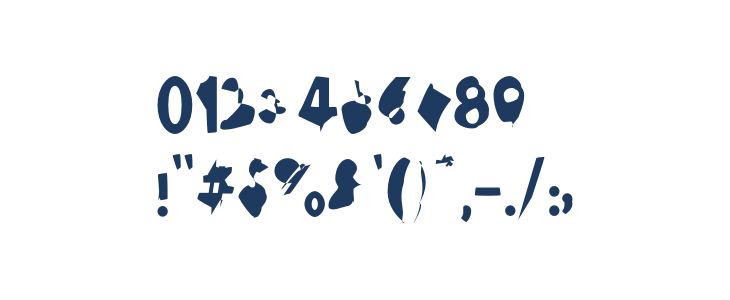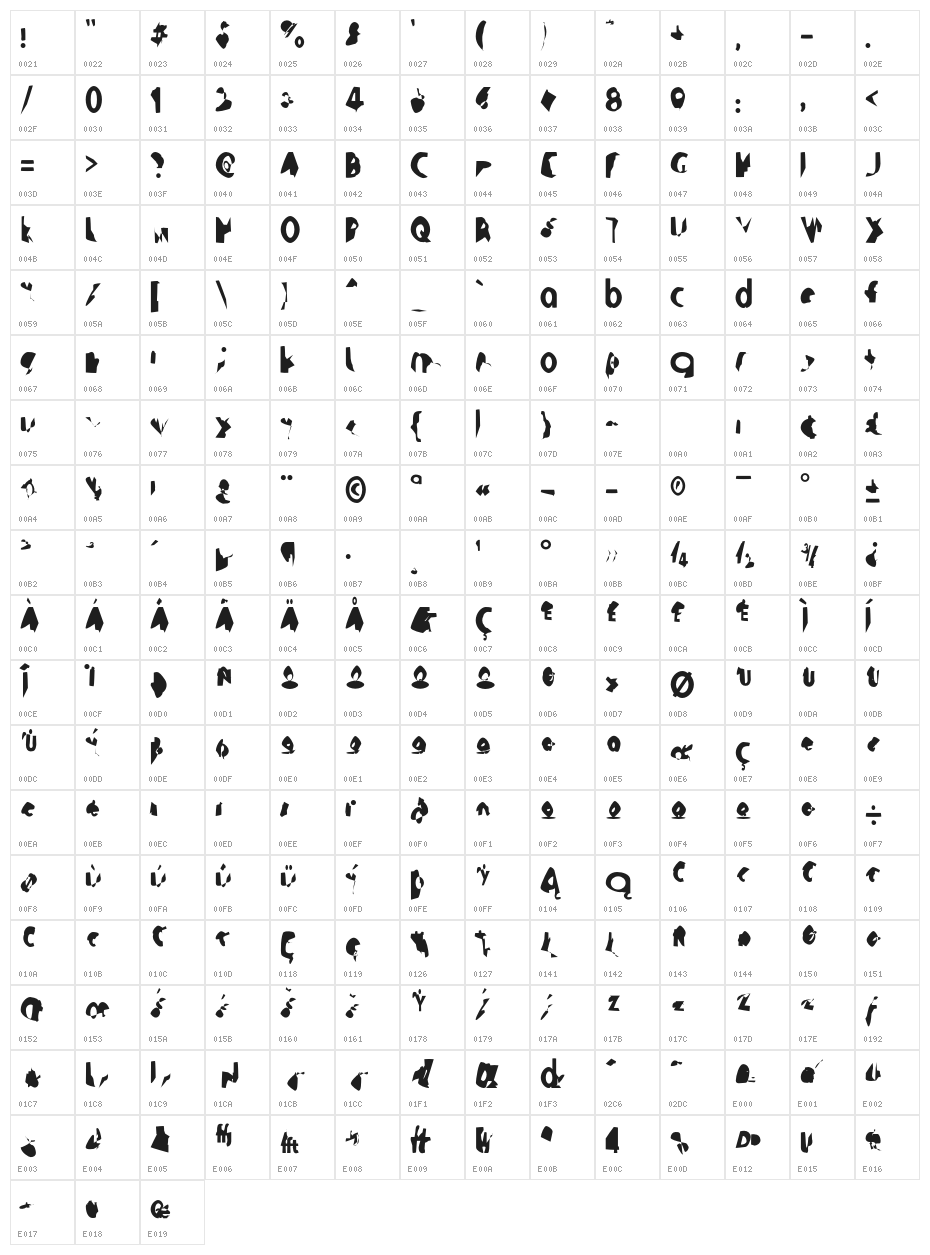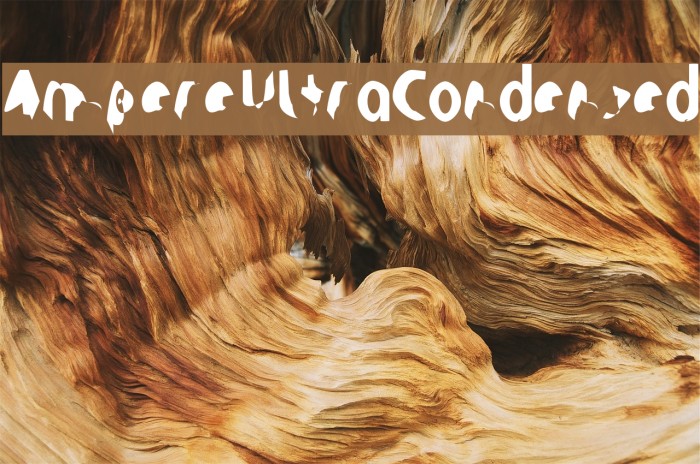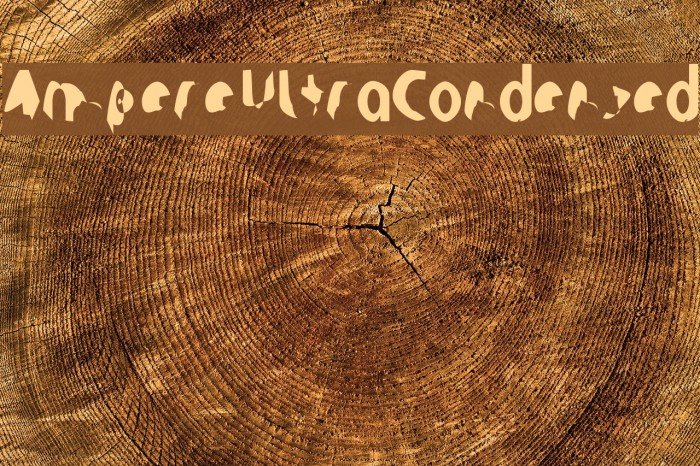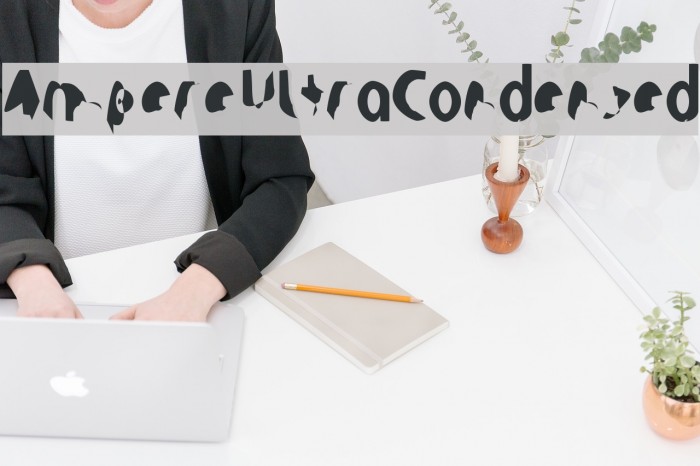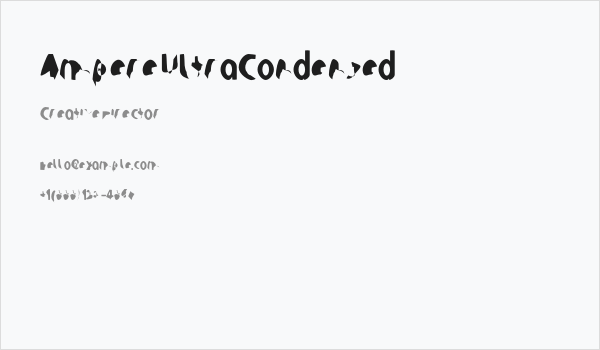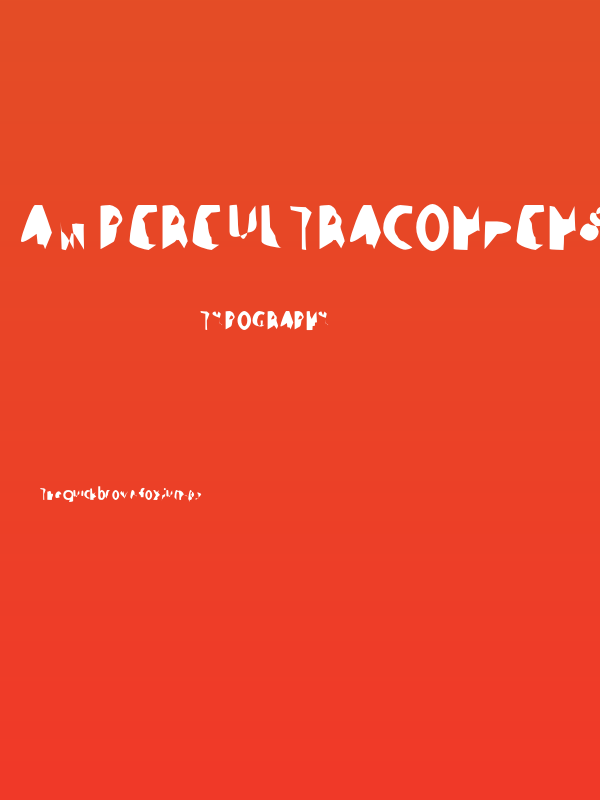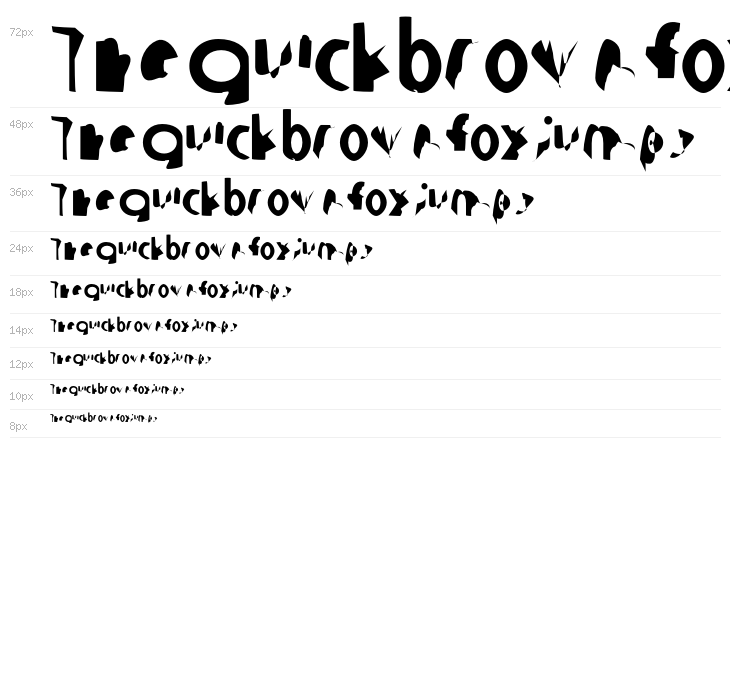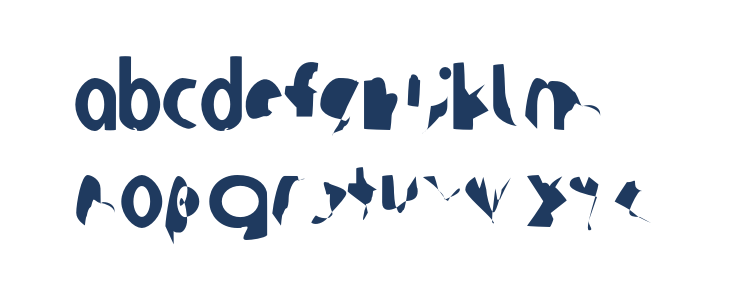
Ampere UltraCondensed Font
Ampere UltraCondensed Description
This font features a highly abstract and fragmented design, with each character appearing as if it has been shattered or deconstructed. The uppercase and lowercase letters, as well as numbers and special characters, are composed of bold, irregular shapes that create a sense of movement and chaos. The overall appearance is striking and unconventional, making it a standout choice for projects that require a bold visual statement. The font's ultra-condensed nature adds to its unique aesthetic, allowing for tight spacing and a compact look.
| Overall Style | Modern, Abstract |
| Use Case | Headlines, Logos, Artistic projects |
| Proposed Projects | Ideal for avant-garde posters, album covers, experimental branding, and modern art installations. |